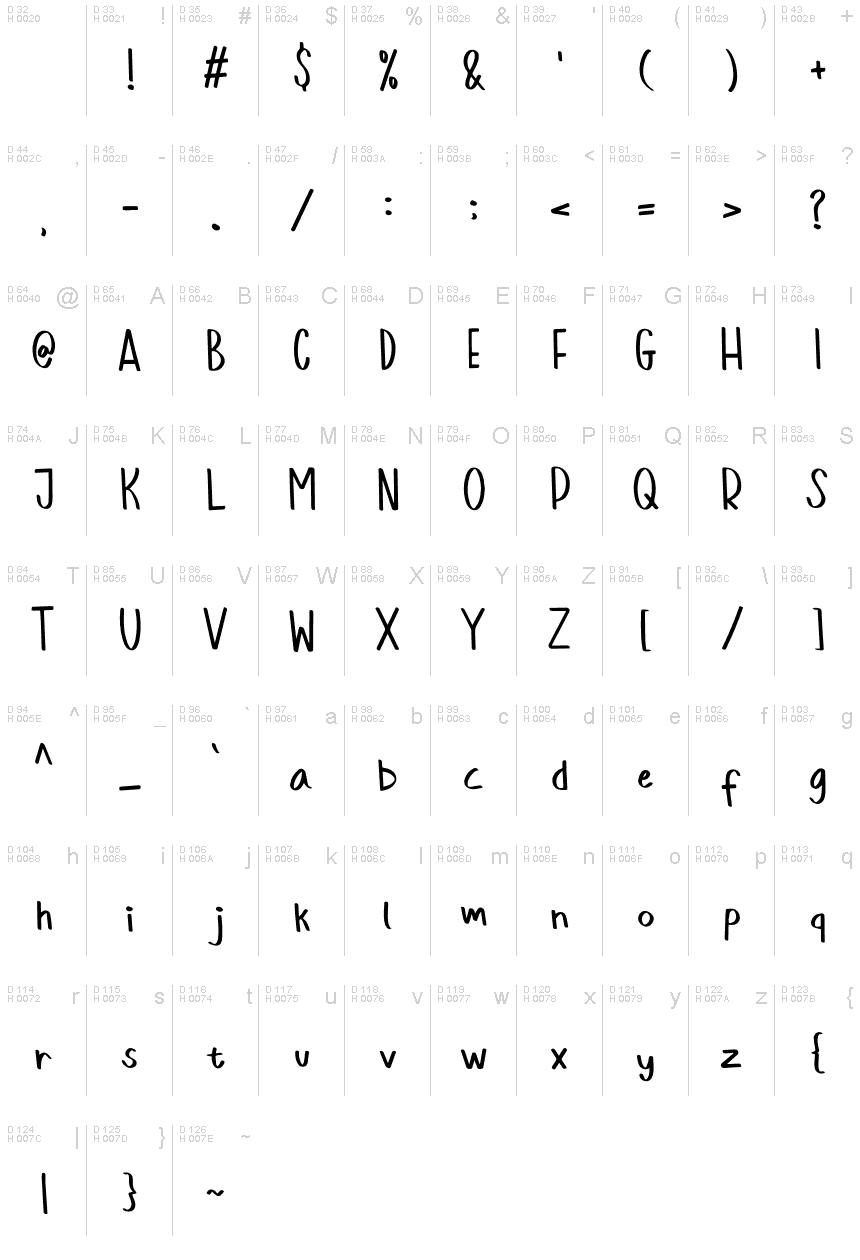
Mello Hello
Meet Mello Hello, the ultimate handwritten font designed by The Docallisme. This semi-light typeface is perfect for adding a touch of playfulness to any project, be it a greeting card, logo design or social media post. Its whimsical curves and strokes exude warmth and friendliness, making it ideal for personal branding or communication. Whether you're looking to craft cute invitations or create an approachable website, Mello Hello will help you achieve your creative vision. So go ahead and spread some cheer with this charming font that's sure to make everyone say hello!